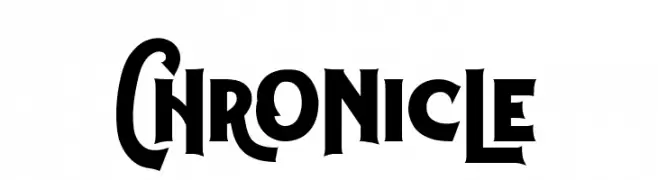
A bold, geometric font with a modern and commanding presence.
A bold, high-contrast font with dramatic strokes and a commanding presence.
A bold, extra-condensed slab serif font with high contrast and a commanding presence.
A bold, high-contrast serif font with sharp serifs and a commanding presence.
A bold, elegant font with strong strokes and a commanding presence.
A bold, angular font with high contrast and a commanding presence.
A bold, high-contrast serif font with dramatic strokes and a commanding presence.
A bold, geometric font with strong, angular shapes and a commanding presence.
A bold, slab serif font with a strong, commanding presence.
A bold, decorative font with strong, angular strokes and a commanding presence.